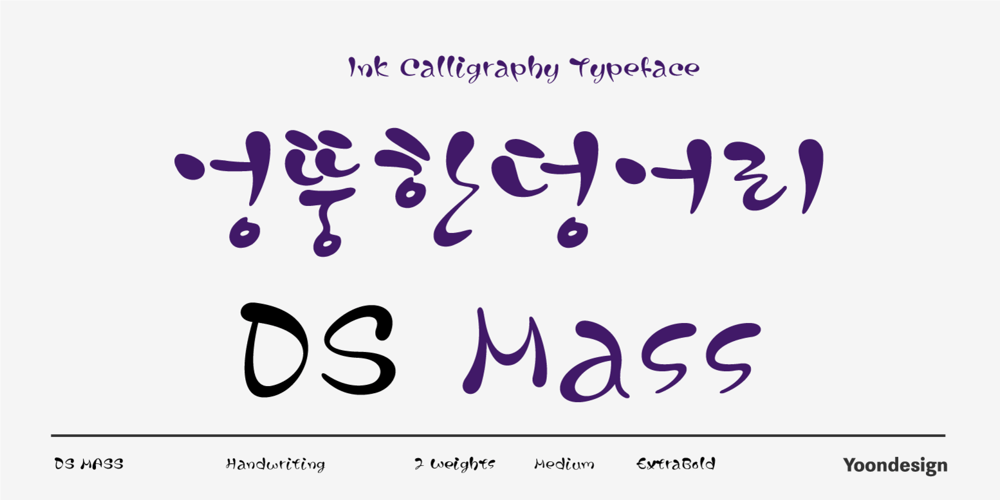
DS Mass Font Family was designed by Yoon Design Team and published by Yoon Design. DS Mass contains 2 styles and family package options. DS Mass Family is very loose, with really extreme proportions, but at the same time it would be beautifully drawn. This font family is based on several concurrent design principles. Like animation; this is the idea that the characters are alive, moving, and can’t stand still. Individually, each character is varying angles, with sinuous curves and proportions. This font family has 2 style and specially designed for logotype, packaging & editorial design projects.